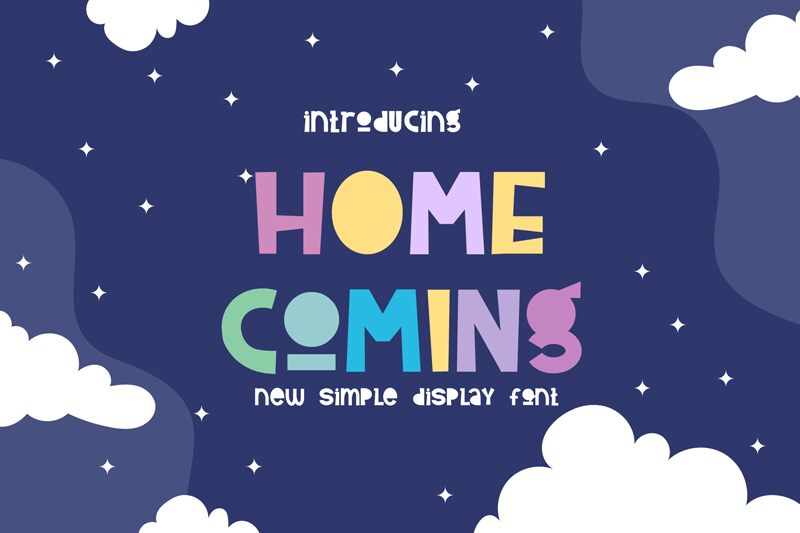
Home Coming
Home Coming, designed by Andang Prasetyo, is a playful and contemporary display font that captures the whimsy and excitement of cartoon aesthetics. With its semi-light weight, Home Coming strikes an inviting balance between readability and stylistic flair. The boldness of its characters is tempered with a simplicity that ensures versatility across various design landscapes.
The font's charming appeal lies in its ability to convey a casual yet captivating voice, making it an excellent choice for social media graphics, particularly Instagram, where visual impact is key. Its cartoon style lends itself seamlessly to projects that require a touch of fun without sacrificing sophistication.
Home Coming's suitability extends beyond digital spaces; it's also perfect for DIY crafts and calligraphy projects. Its unique blend of boldness and playfulness can elevate your creative ideas, transforming them into engaging works of art that stand out with personality and warmth.
Whether you're crafting eye-catching headlines, designing personalized invitations or conceptualizing branding elements—Home Coming brings a distinctive character to every creation it graces.